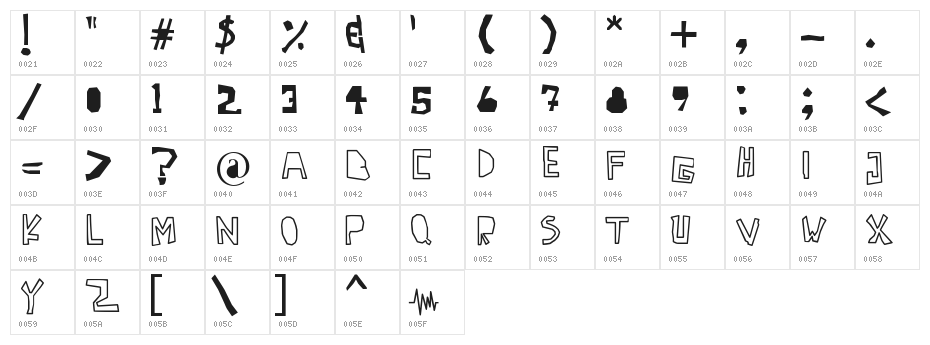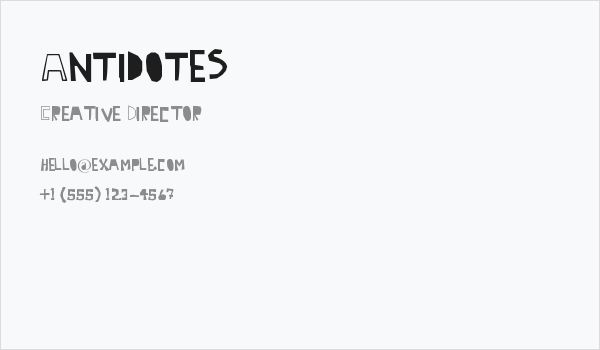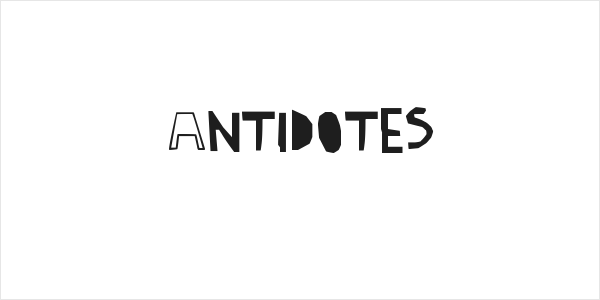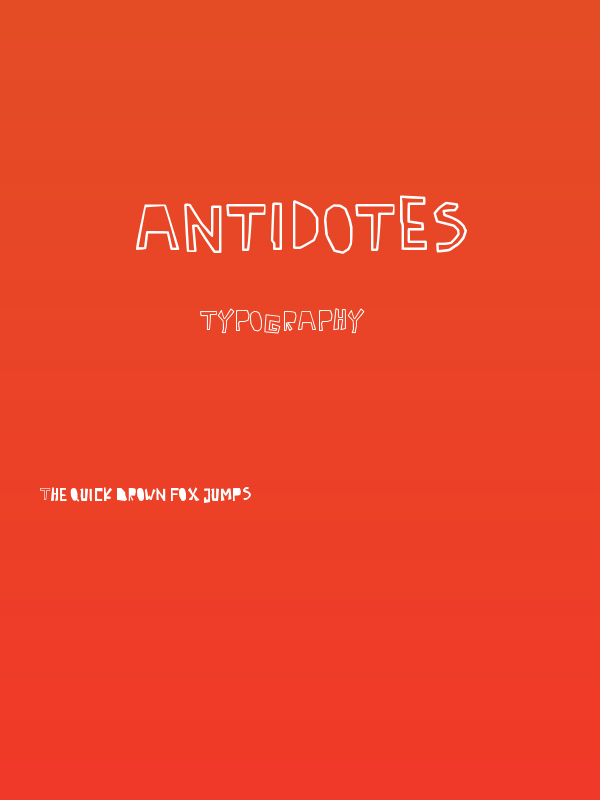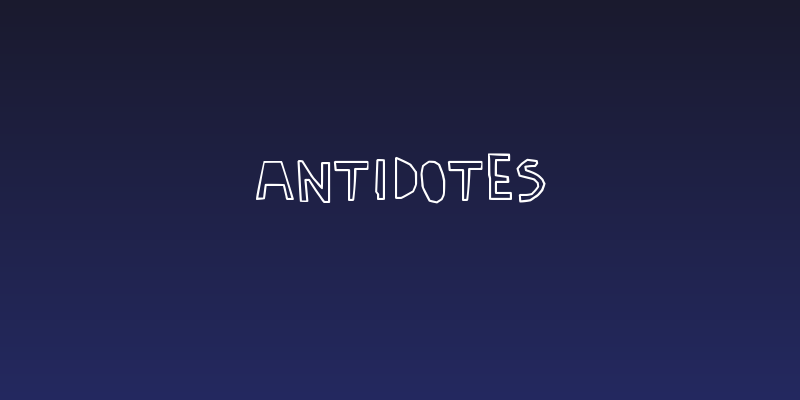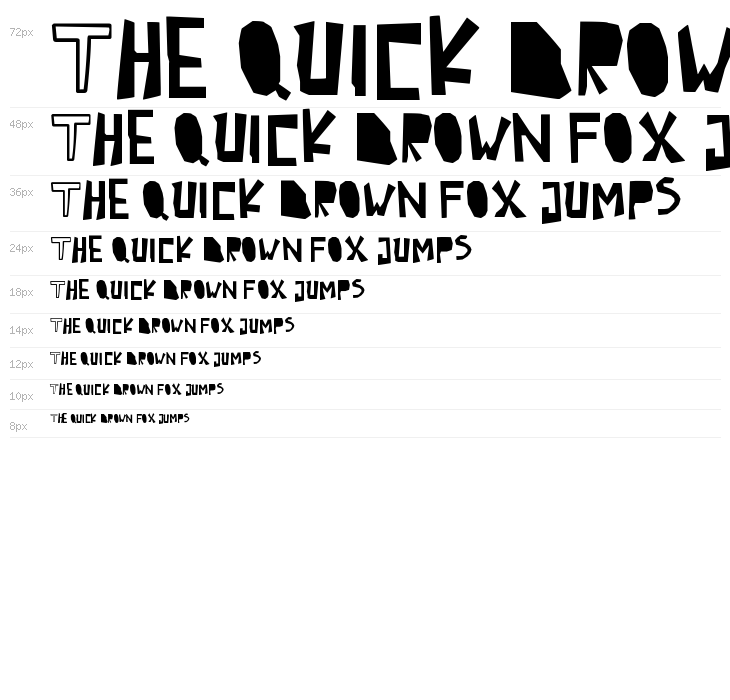
Antidotes Font
Antidotes Description
This font features a highly distinctive and irregular style, characterized by its angular and geometric shapes. The uppercase letters are bold and blocky, with a hand-drawn appearance that gives them a unique, almost graffiti-like quality. The lowercase letters maintain this aesthetic, though they are slightly more compact. Numbers and special characters follow the same design principles, ensuring consistency across the typeface. The font's uneven lines and varied stroke thicknesses contribute to its dynamic and edgy look, making it stand out in any design context.
| Overall Style | Modern, Edgy |
| Proposed Projects | Ideal for street art-inspired designs, edgy branding, album covers, and posters. |